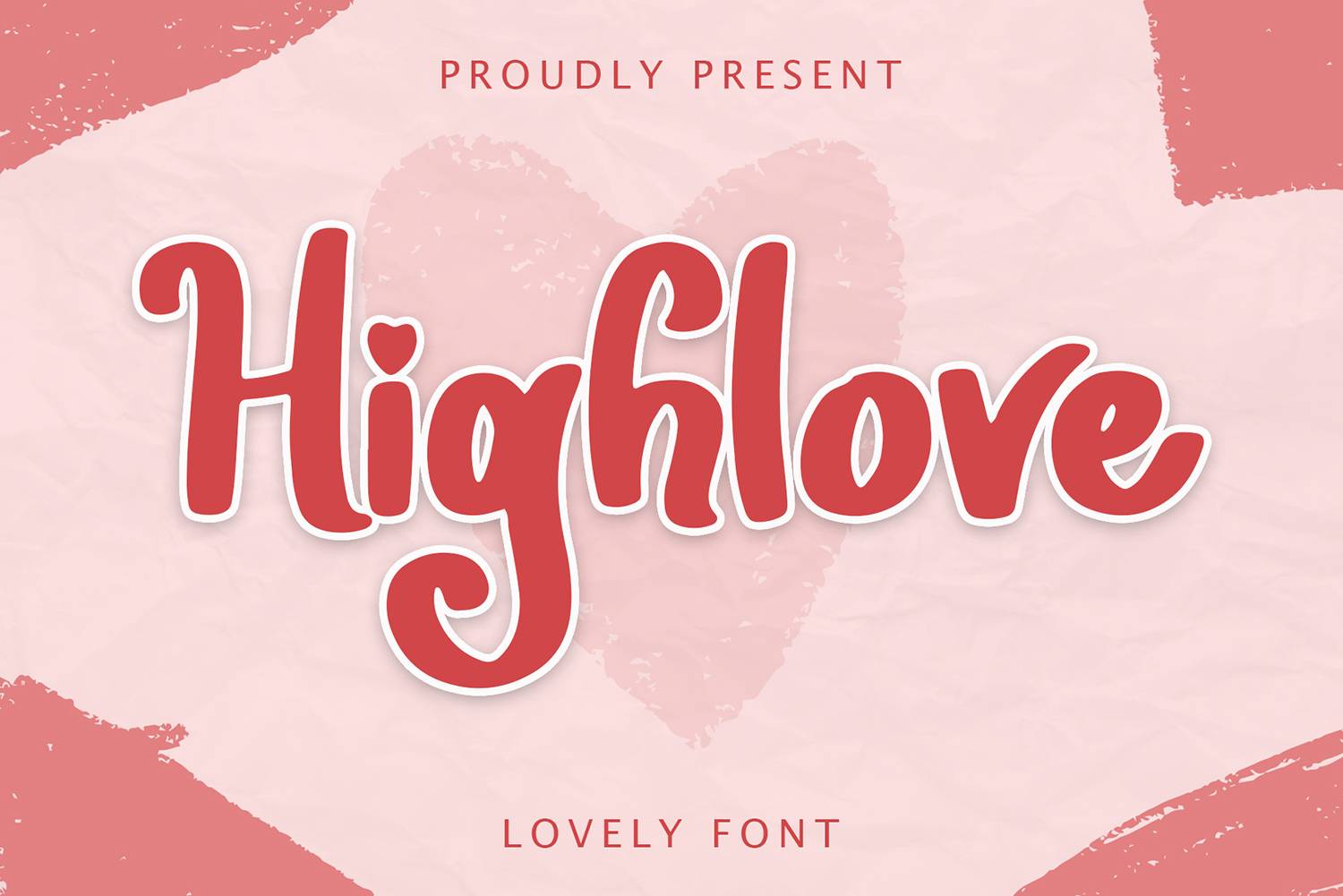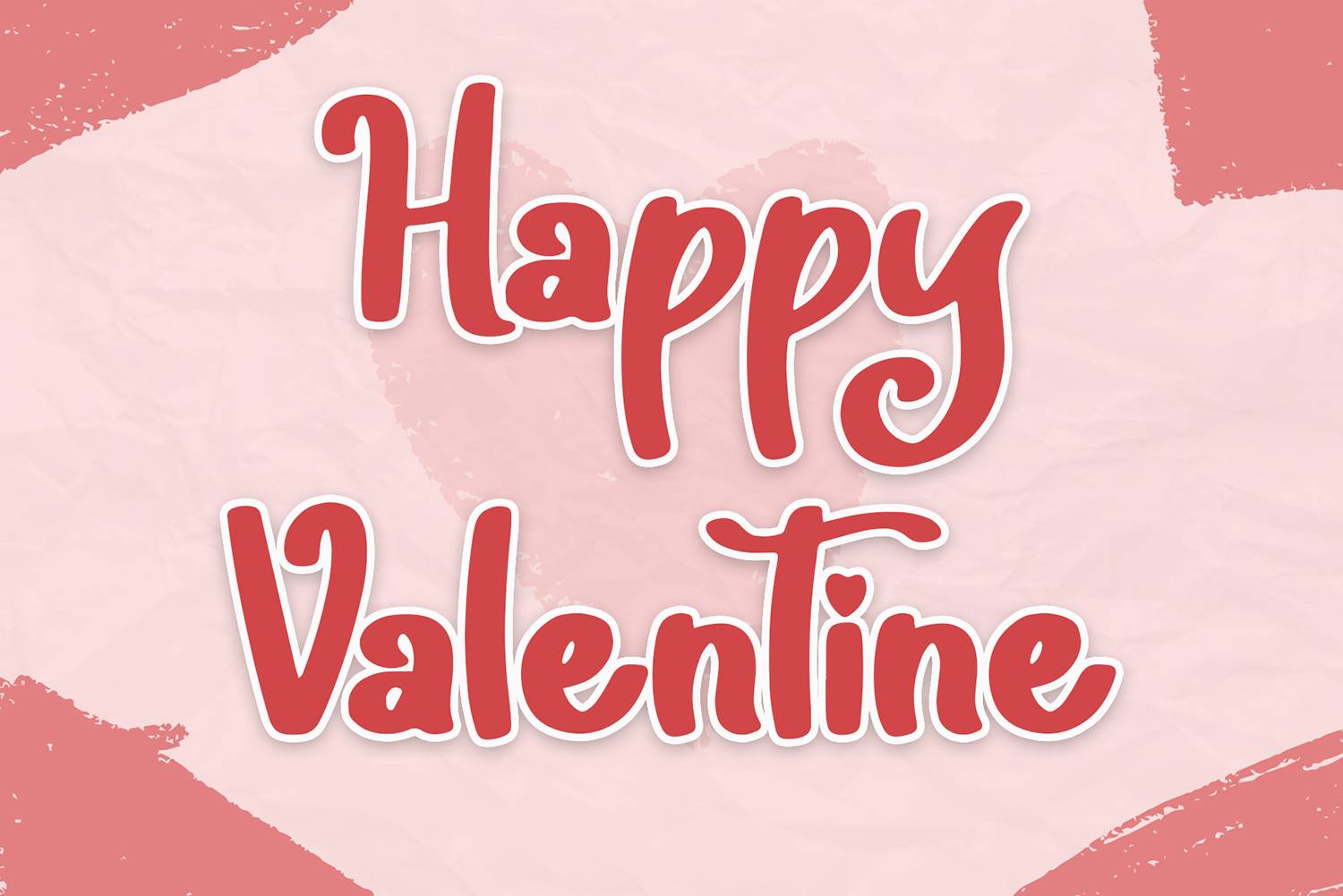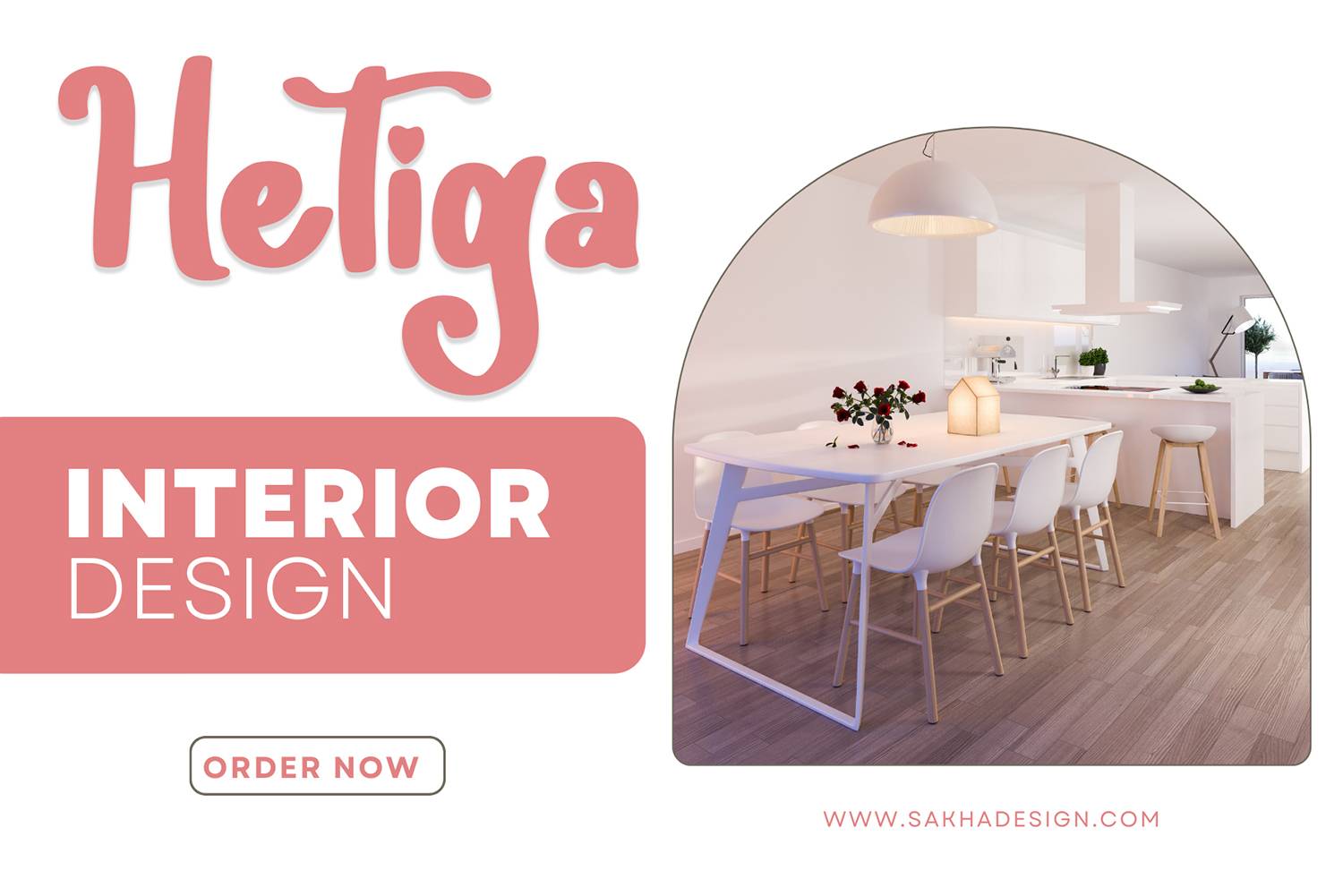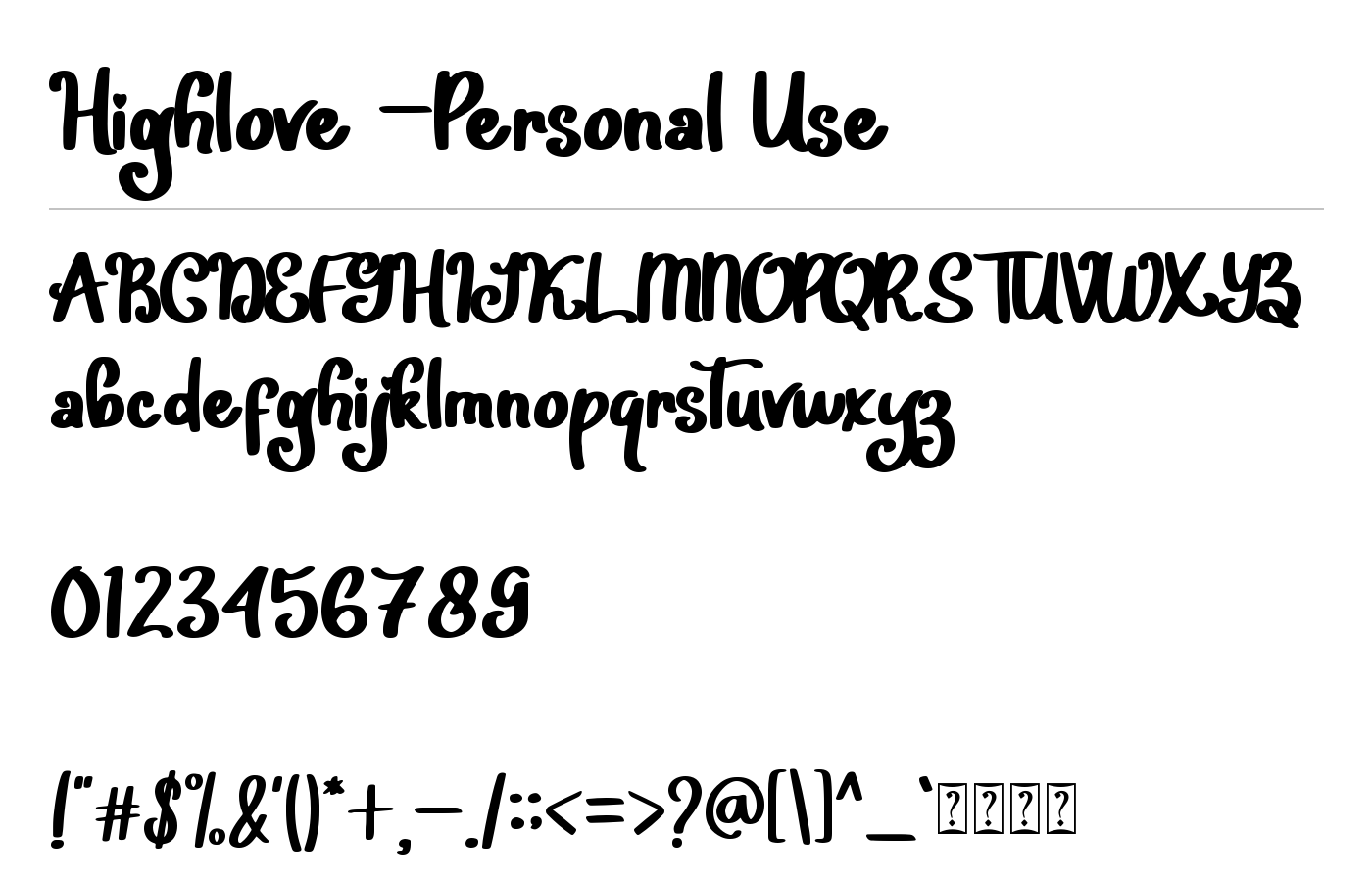
Highlove is a playful and bold script font with a hand-drawn feel, featuring thick, rounded strokes and lively letterforms that evoke warmth and friendliness. Its casual style makes it perfect for personal projects, creative branding, and designs that want to convey fun and approachability. This font works well for headlines, invitations, and packaging that need a charming and informal touch.
Highlove Font
About Highlove Font